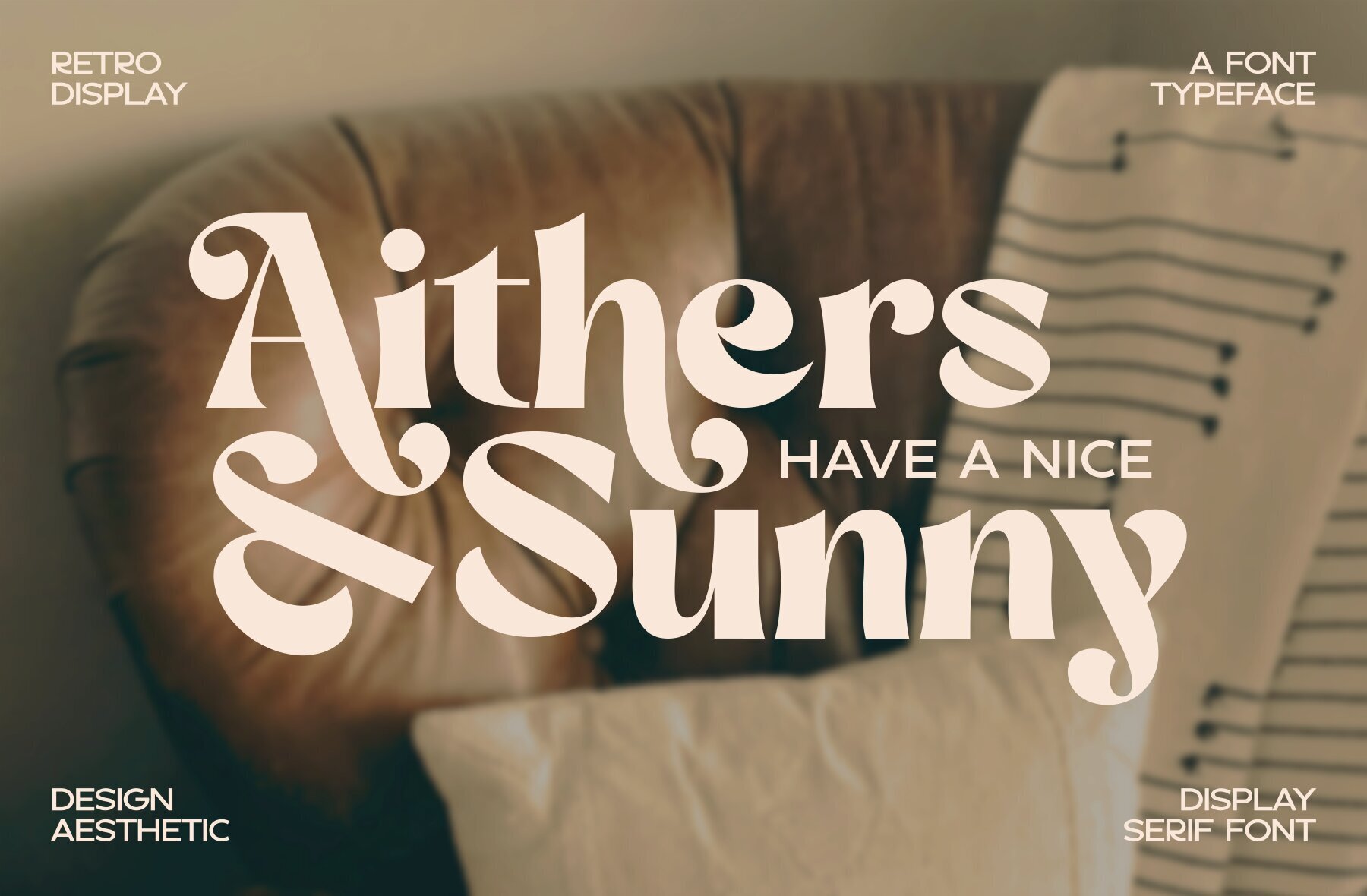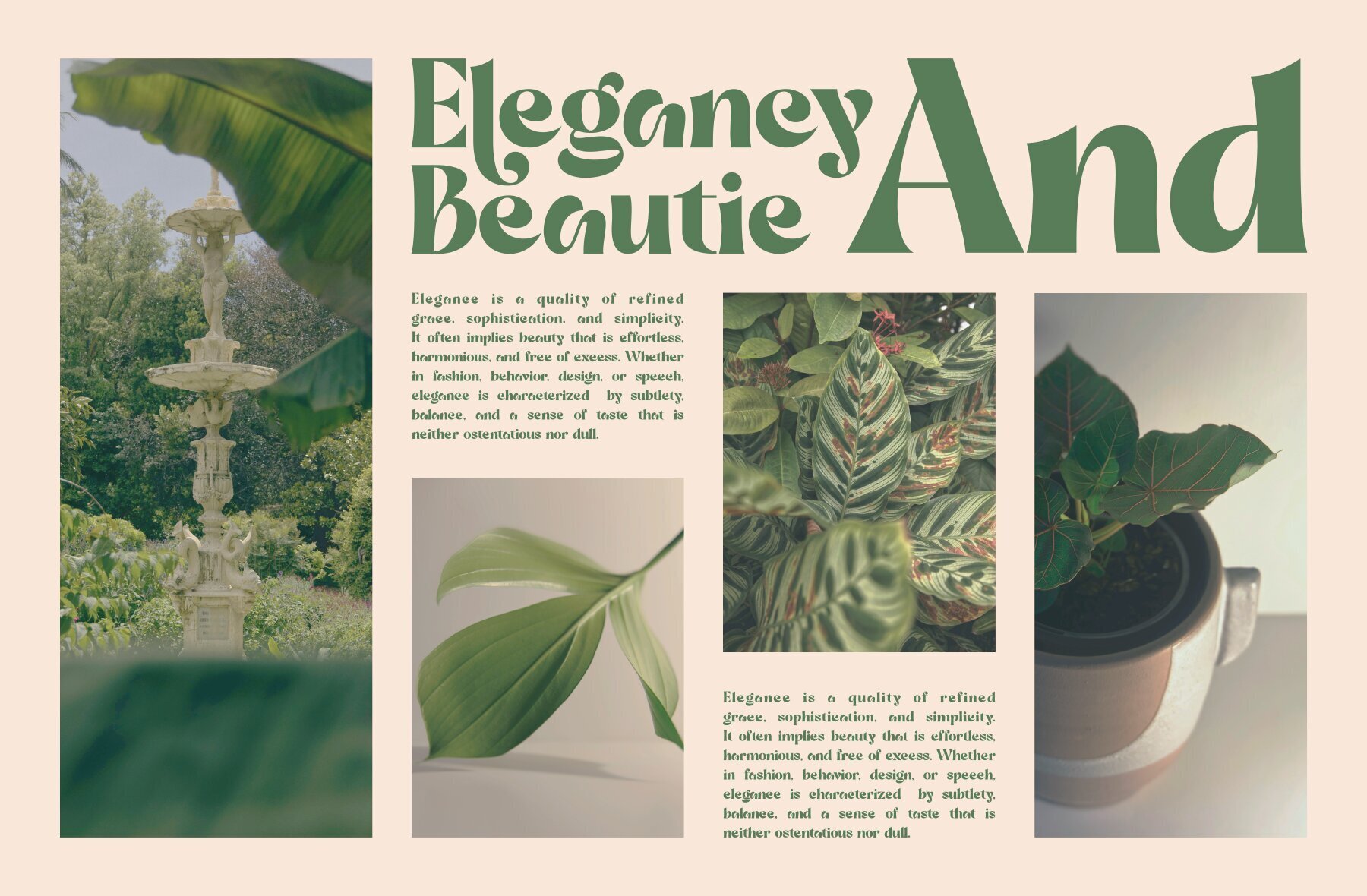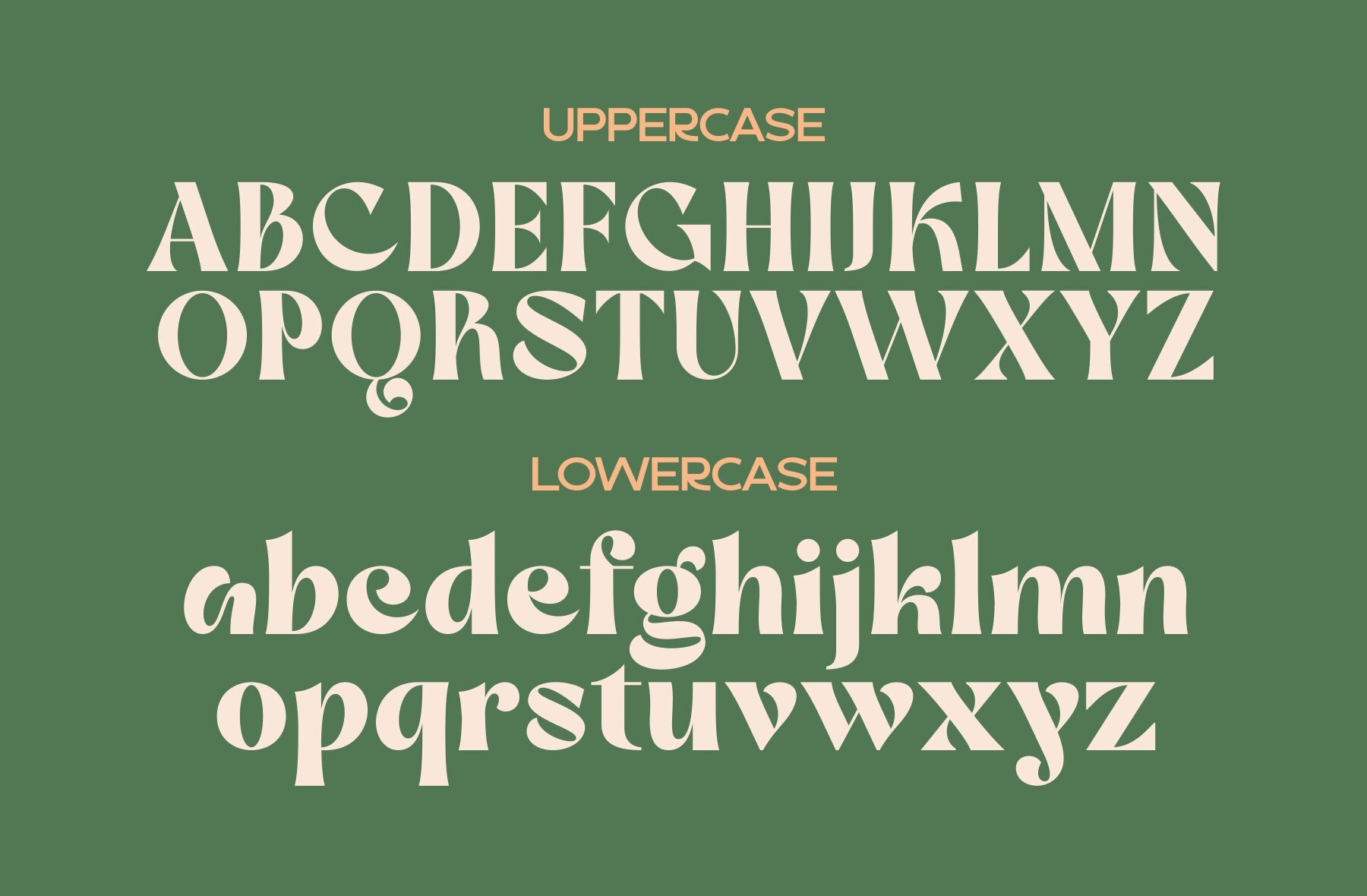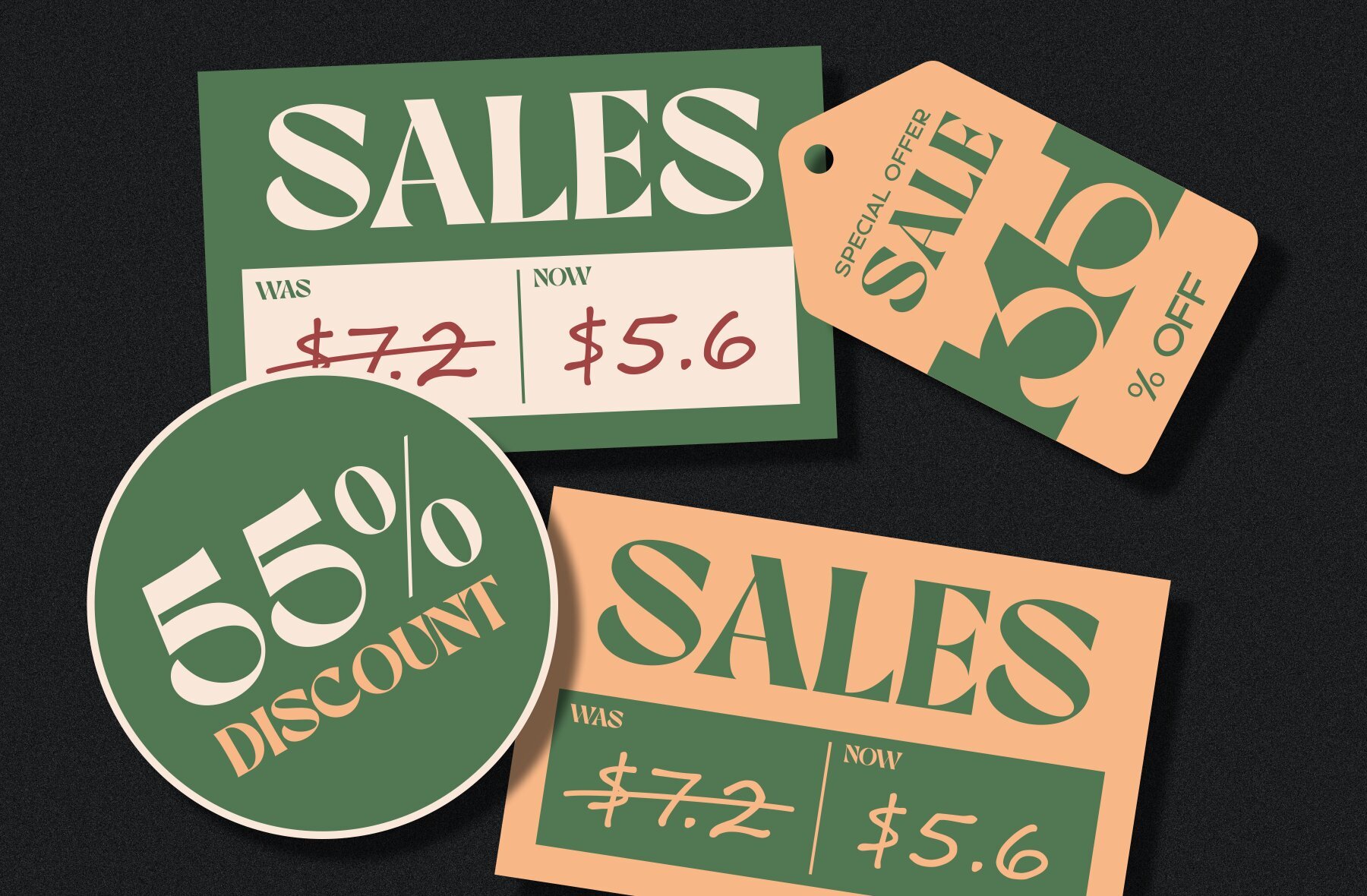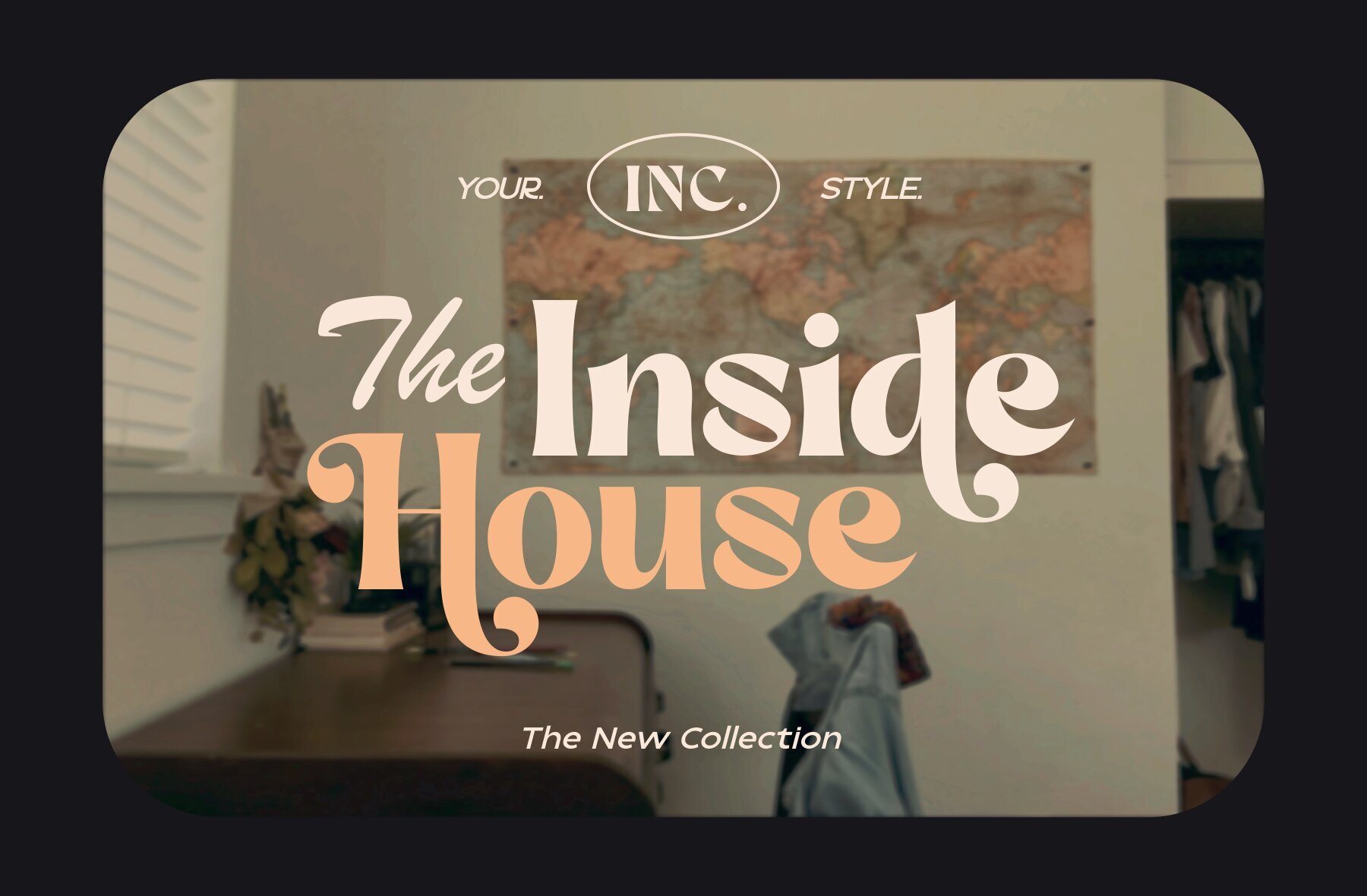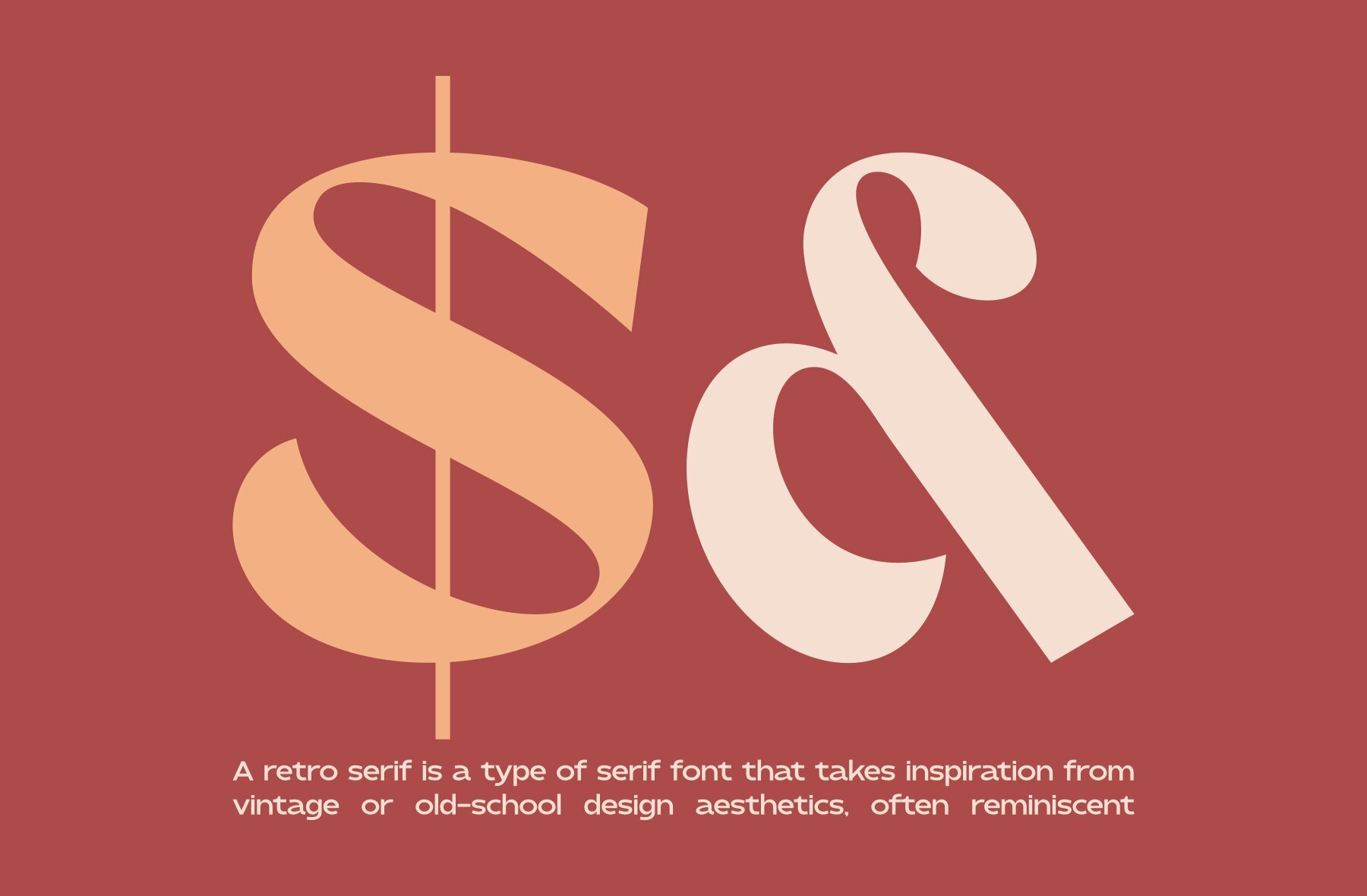
Dilley Helia Font
Dilley Helia
Dilley Helia is a serif retro typeface that combines a balanced proportion of stroke thickness with refined elements, resulting in a highly readable yet distinctive look. This modern serif font is characterized by its bold contrast between thick and thin lines, offering a subtle yet eye-catching aesthetic that enriches any design project. Its classic undertones merge seamlessly with contemporary stylistic cues, making it versatile for various applications.
This typeface supports a range of typographic needs, offering uppercase and lowercase characters, multilingual options, ligatures, and alternates. These features enhance its adaptability, ensuring Dilley Helia can suit a variety of design contexts—from editorial layouts to branding. Its blend of traditional and modern aspects makes it an excellent choice for designers seeking to inject a hint of retro flair into their work while maintaining a polished and professional feel.